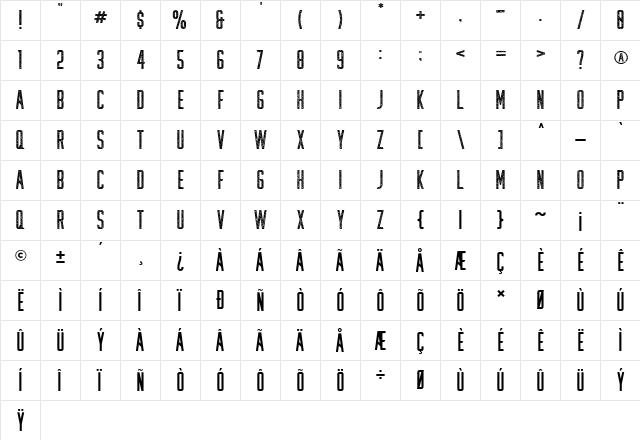
Lakers Bold Font Preview
Lakers Bold
Lakers Bold Font Details
Design Context for Lakers Typeface
Lakers is a composed and adaptable typeface that performs quietly and consistently across a wide range of design contexts. Its bold stroke weight gives it real presence on the page.
Pro Tip: Pair Lakers with a font of contrasting weight or personality to build a more expressive typographic hierarchy.